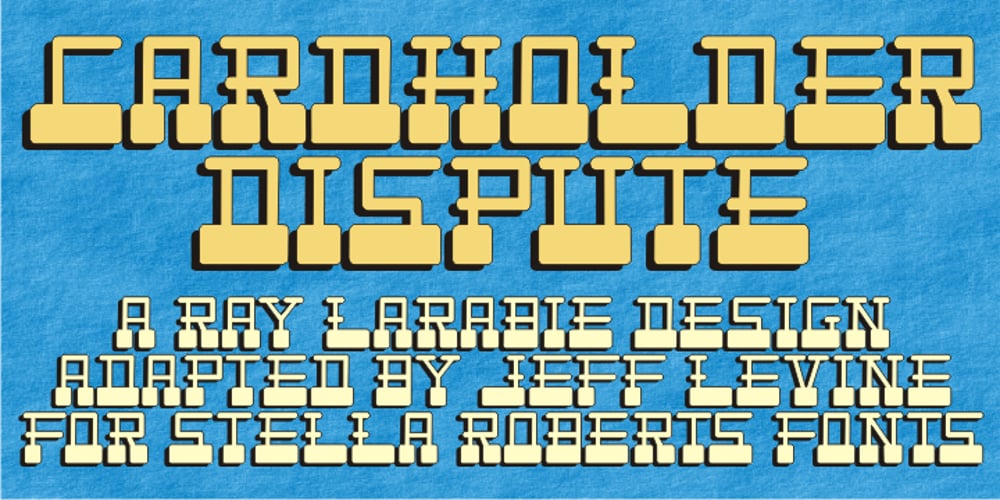
Cardholder Dispute SRF Font Family was designed by published by Stella Roberts Fonts. Cardholder Dispute SRF contains 1 styles and family package options. From the remnants of an old freeware font by Ray Larabie comes Cardholder Dispute SRF. Thoroughly rebuilt from the ground up by Jeff Levine, this post-80s techno lettering can also double as a pop culture font evoking 60s or 70s rock concerts and hippie colonies or (as the name implies) credit cards. The net profits from my font sales help defer medical expenses for mysiblings, who both suffer with Cystic Fibrosis and diabetes. Thank you.